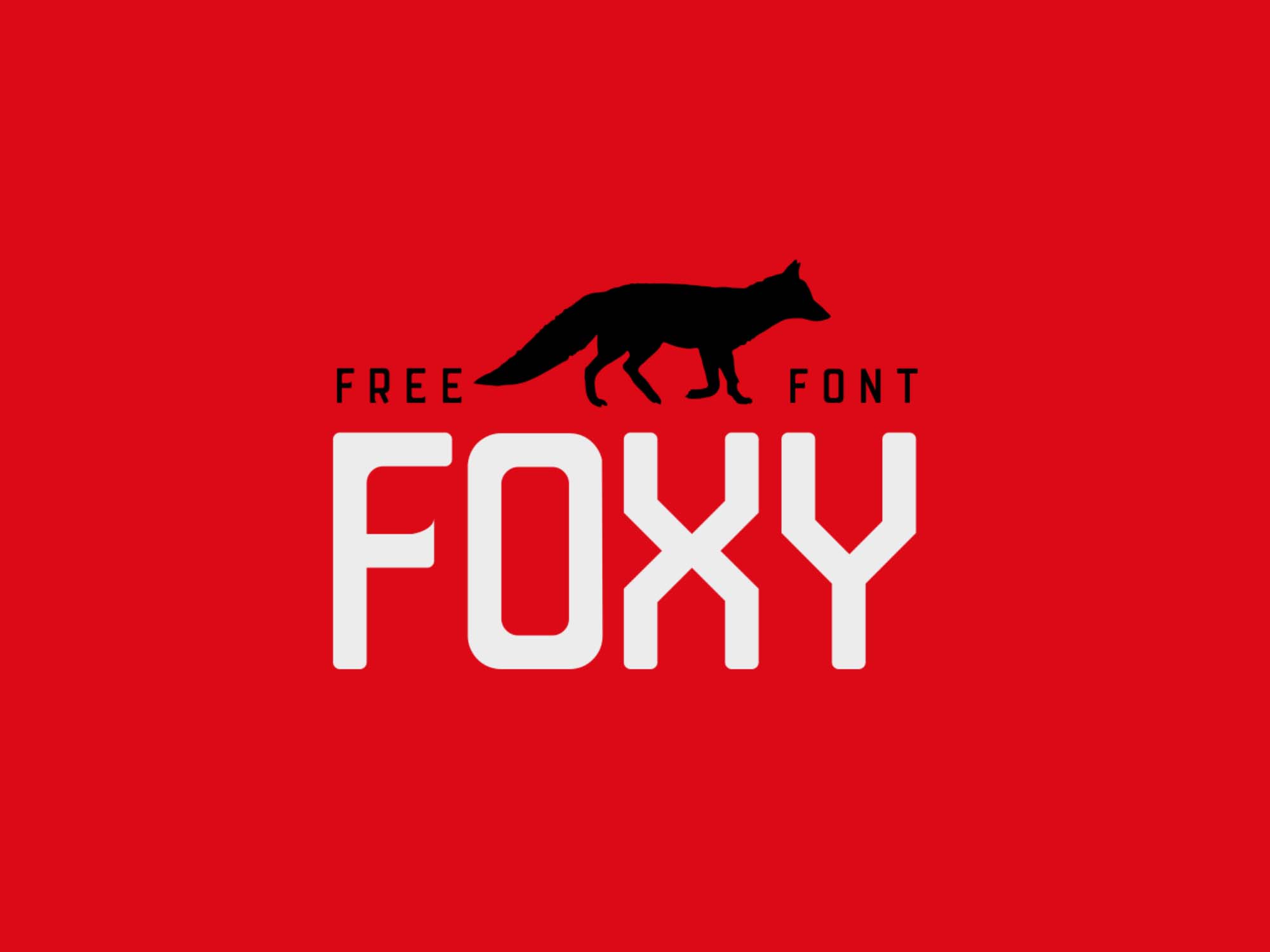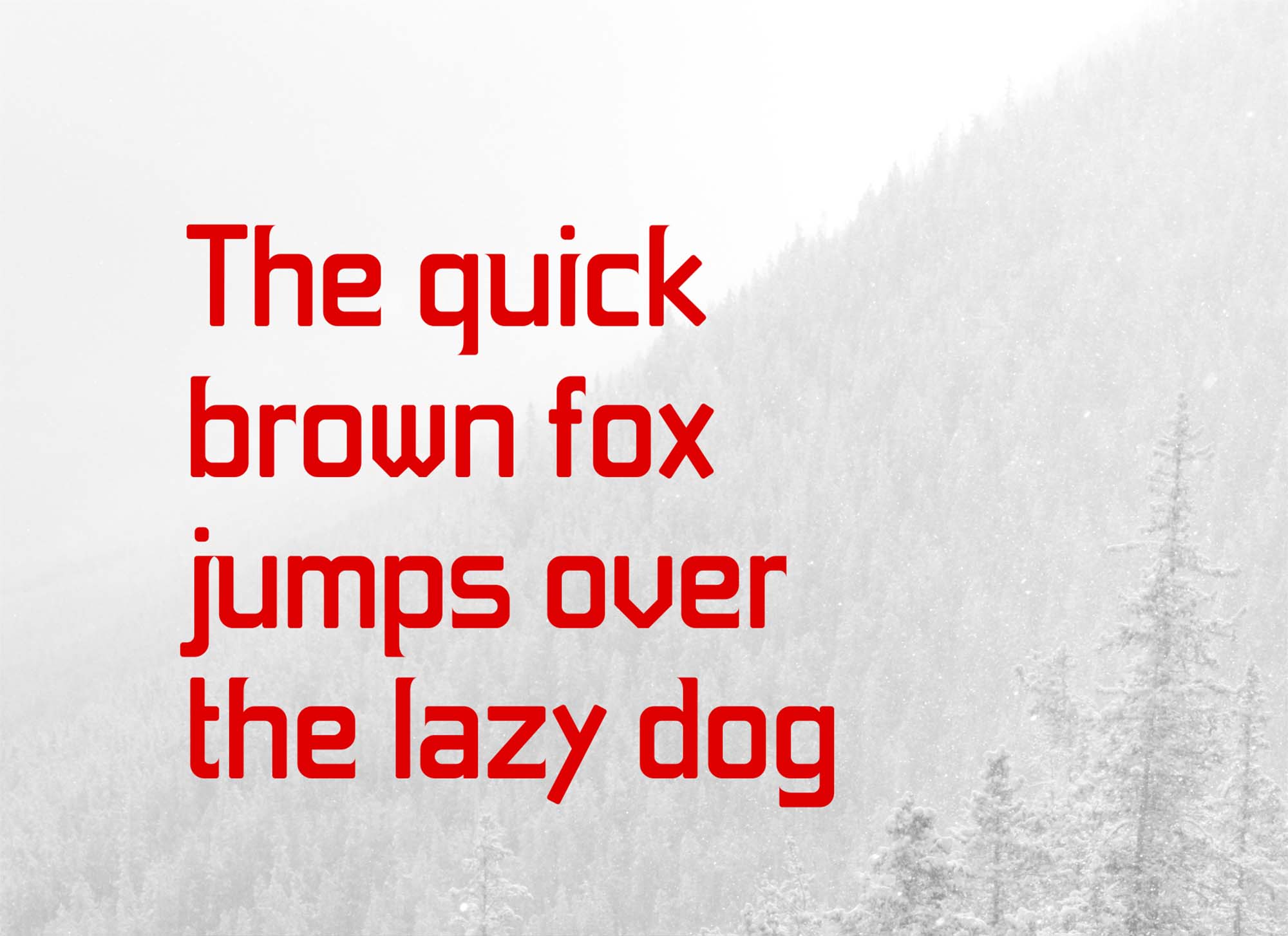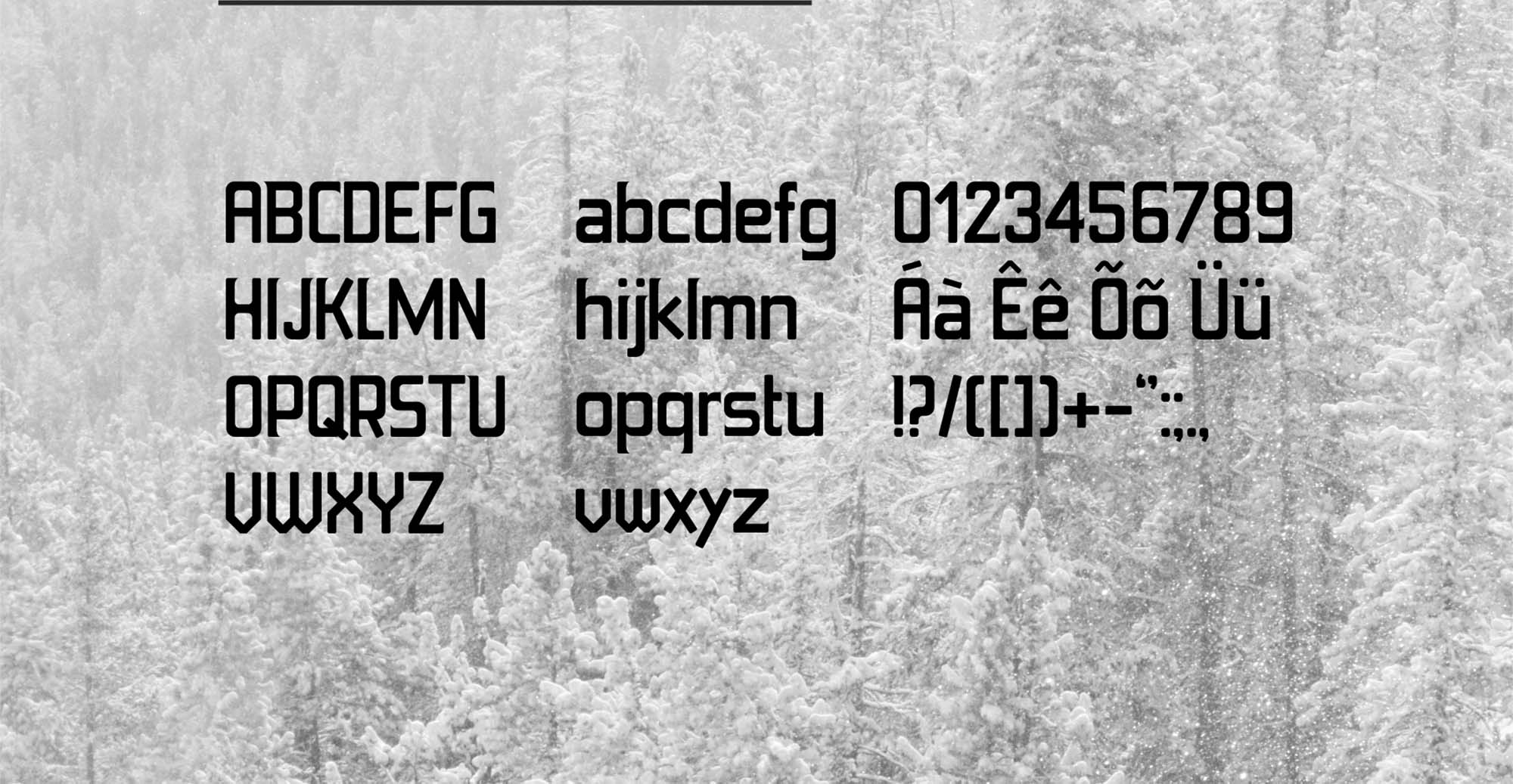
Foxy Sans Serif Font
This is a unique stylish Foxy sans font. This font is perfect for adding a personal charm to your logos, branding, social media, advertisements, invitations, product designs, product packaging, etc. Have fun using it!